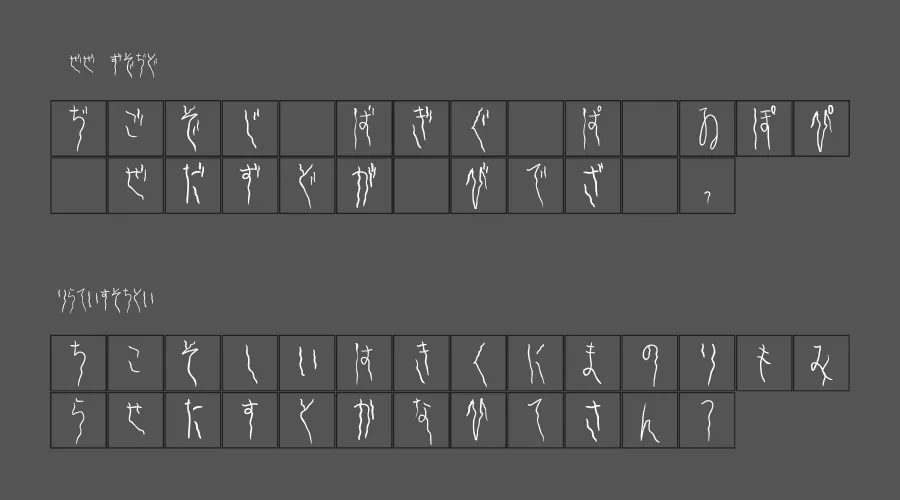
About Yura Hiragana Font
In this article, going to share with you a new famous typeface called Yura Hiragana font. It was invented by a well-known graphic designer named Baka. This font was published in 2006 with the category of dingbats texture family and is free for all your private purposes.